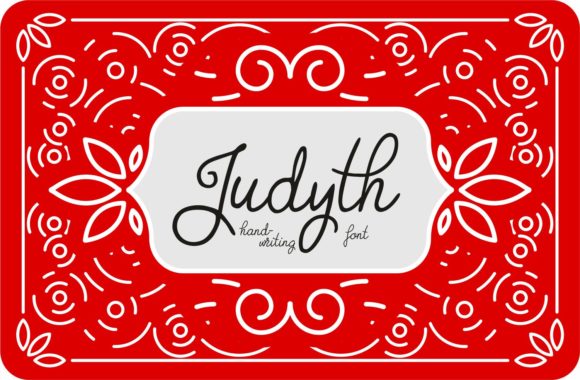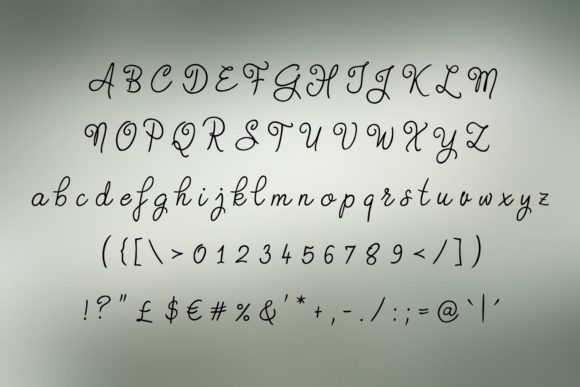
Judyth Font
About Judyth Font
Judyth is a simple, yet charming handwritten font with a lot of swashes. Get inspired by its unique feel, and turn any design project into a true stand out!